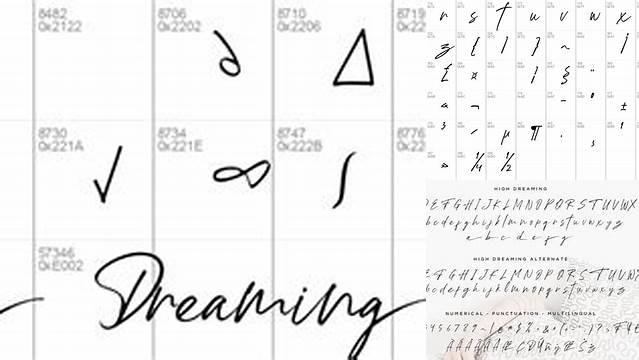
Hey guys! Ever stumbled upon a font that just screams elegance and a touch of whimsy? Well, if you're on the hunt for something that captures that vibe, you might just fall head over heels for High Dreaming Regular. This font is a real gem, perfect for everything from crafting stunning headlines to adding a unique flair to your design projects. And the best part? You can snag it for free! In this article, we'll dive deep into everything you need to know about High Dreaming Regular Font free download, including where to find it, how to use it, and some killer design ideas to get your creative juices flowing. So, buckle up and let's get started!
Why High Dreaming Regular Font? Exploring Its Unique Appeal
Okay, so what's the big deal about High Dreaming Regular? Why choose this font over the gazillion others out there? Well, let's break it down. First off, the font boasts a beautifully balanced aesthetic that blends classic elegance with a modern twist. Its letterforms are carefully crafted, offering a smooth and readable experience while still exuding a unique character. This makes it an excellent choice for projects where you want to make a statement without sacrificing readability. Think about it: you want something that grabs attention, but you don't want your audience squinting to decipher the message, right? High Dreaming Regular nails that balance perfectly.
Furthermore, the font's versatility is a huge plus. It works wonders in a variety of contexts. From crafting eye-catching logos and branding materials to designing website headers and social media graphics, High Dreaming Regular adapts seamlessly. Its clean lines and refined curves give it a sophisticated edge that can elevate any design project. Whether you're a seasoned designer or just starting, this font can add a professional touch to your work.
Let's talk about the emotional impact, too. Fonts can evoke specific feelings, and High Dreaming Regular is no exception. It often conveys a sense of creativity, and even a little bit of nostalgia. It's the kind of font that can make your audience feel like they're in for something special. This makes it ideal for creative projects, invitations, and anything that requires a touch of artistry and individuality. With its distinct appearance, it sets your work apart and leaves a lasting impression. The font's delicate curves and fine details add an extra layer of visual interest, making it an excellent choice for branding projects that require sophistication and approachability. So, whether you are looking to revamp your brand or add a classy look to your new project, consider downloading this fantastic font.
And here's another little secret: It's super user-friendly. While it has that artistic flair, it's still easy to read and implement. No need to spend hours wrestling with a complicated font; High Dreaming Regular is designed for easy integration. You can use it in various design software, from your favorite image editors to professional design suites. This means you can focus on the creative process, not the technical hurdles, making your design workflow smoother and more enjoyable. This is a great font choice for all kinds of creative ventures because it effortlessly marries beauty and ease of use.
Mastering High Dreaming Regular Font: Usage Tips and Tricks
- Pairing: This font goes well with other fonts, so consider using it with a clean sans-serif font for body text. This combination gives a nice contrast and keeps your design balanced. Try combinations with fonts that match the general style of High Dreaming Regular. Don't be afraid to experiment to find the perfect combination!
Final Thoughts: Unleash Your Creativity with High Dreaming Regular